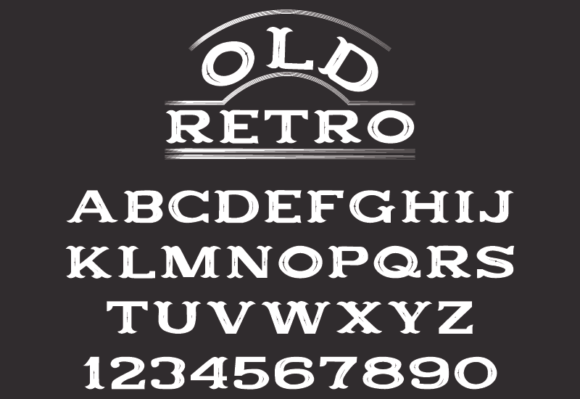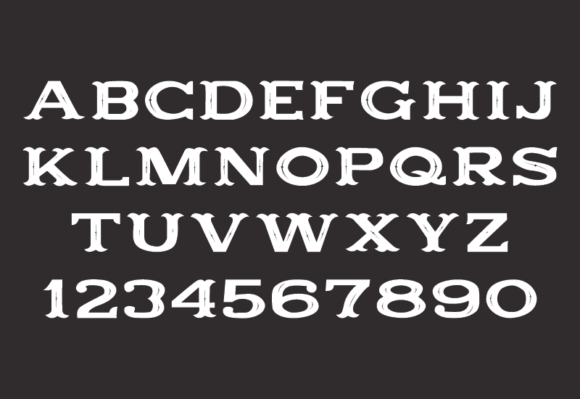
Introduction to Old Retro Font
Remember the first time you stumbled upon a vintage photograph, and the instant nostalgia washed over you? It’s as if time stood still, and the world around you melted away, leaving only the beauty of the past. That’s the magic of retro design, and it’s precisely what the Old Retro Font is all about. This simple yet elegant Western-style serif font is designed to evoke the same feeling of nostalgia and timelessness in your creative projects.
Whether you’re working on a logo, web design, or branding project, the Old Retro Font is an invaluable design resource that can add a touch of sophistication and minimalism to your work. With its balanced proportions and clean lines, this font is perfect for creating a high-quality visual identity that’s both timeless and modern. And the best part? You can download it for free, making it an accessible and versatile design tool for any creative project.
Key Features of Old Retro Font
- High-quality, vintage-inspired design for creative projects and designs, including posters, logos, and advertisements.
- Features a unique, distressed aesthetic that adds a touch of nostalgia and charm to any design project.
Honest Review: Old Retro Font
Here are some things that work well with this font:
- ✨ The font has a unique, nostalgic feel that’s perfect for vintage-themed designs.
- ✨ The font is highly customizable, allowing you to adjust the size, color, and style to fit your needs.
- ✨ The transparent background option makes it easy to layer over other design elements.
- ⚠️ The font may not be suitable for modern, minimalist designs, as it has a distinctly retro aesthetic.
- ⚠️ The font may not be as versatile as some other design resources, but it’s still a great choice for specific projects.
Overall, I’m impressed with the Old Retro Font. It’s a great design resource for creative projects, and the free download makes it an attractive option for designers on a budget.
Designing with Old Retro Font
The Old Retro Font is versatile and can be used in a variety of creative projects, including:
- Graphic design and visual identity
- Print and digital marketing materials
- Photography and photo editing
Tips for Getting the Most Out of Old Retro Font
To maximize the potential of the Old Retro Font, experiment with different font sizes, colors, and styles to achieve the desired effect. You can also combine it with other design elements to create a unique and captivating visual identity.
Alternatives to Old Retro Font
1. VCR OSD Mono
VCR OSD Mono is a classic, high-quality font that resembles the old video cassette player text overlays. It’s perfect for creative projects that need a nostalgic touch, such as film-inspired designs or vintage-style advertisements. This font can be downloaded for free and is available in various formats, including EPS, OTF, and TTF. It also offers a transparent background, making it ideal for use on images or videos.
VCR OSD Mono is similar to Old Retro Font in its retro aesthetic, but it has a more modern and sleek design. It’s also more versatile, with a wider range of uses in design, from headings to body text.